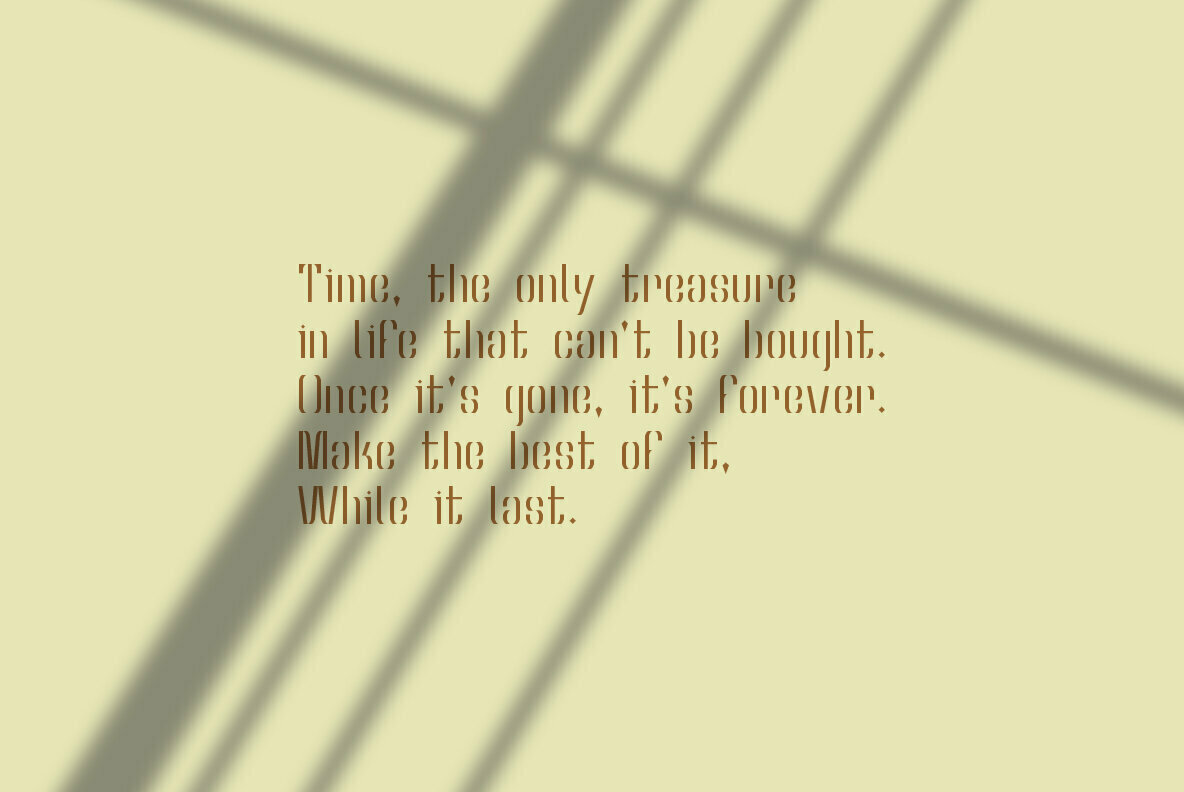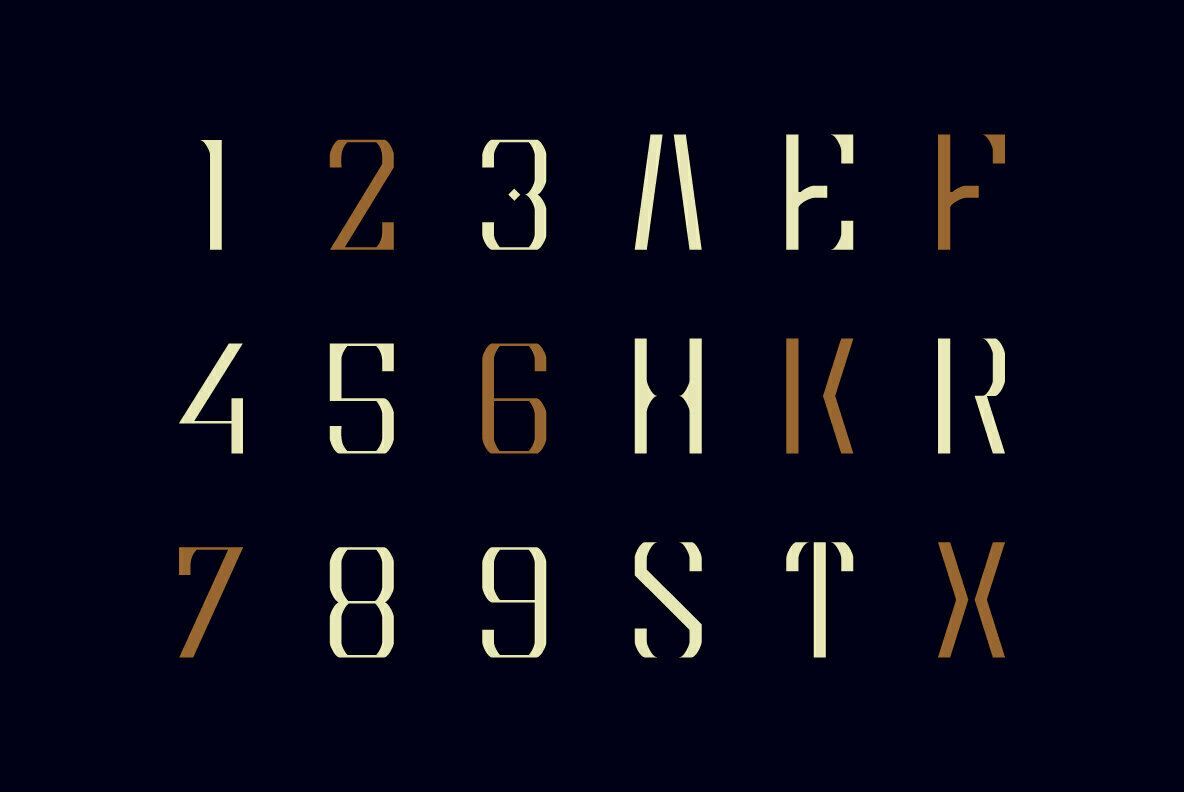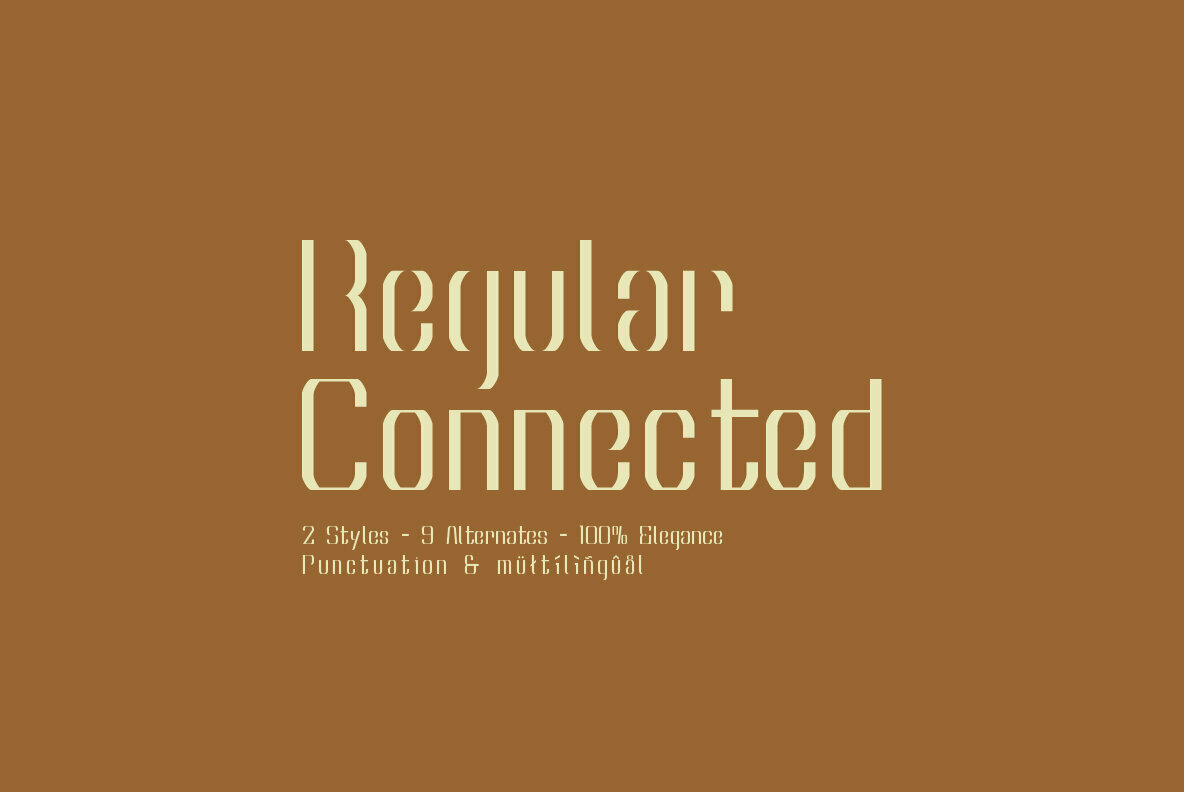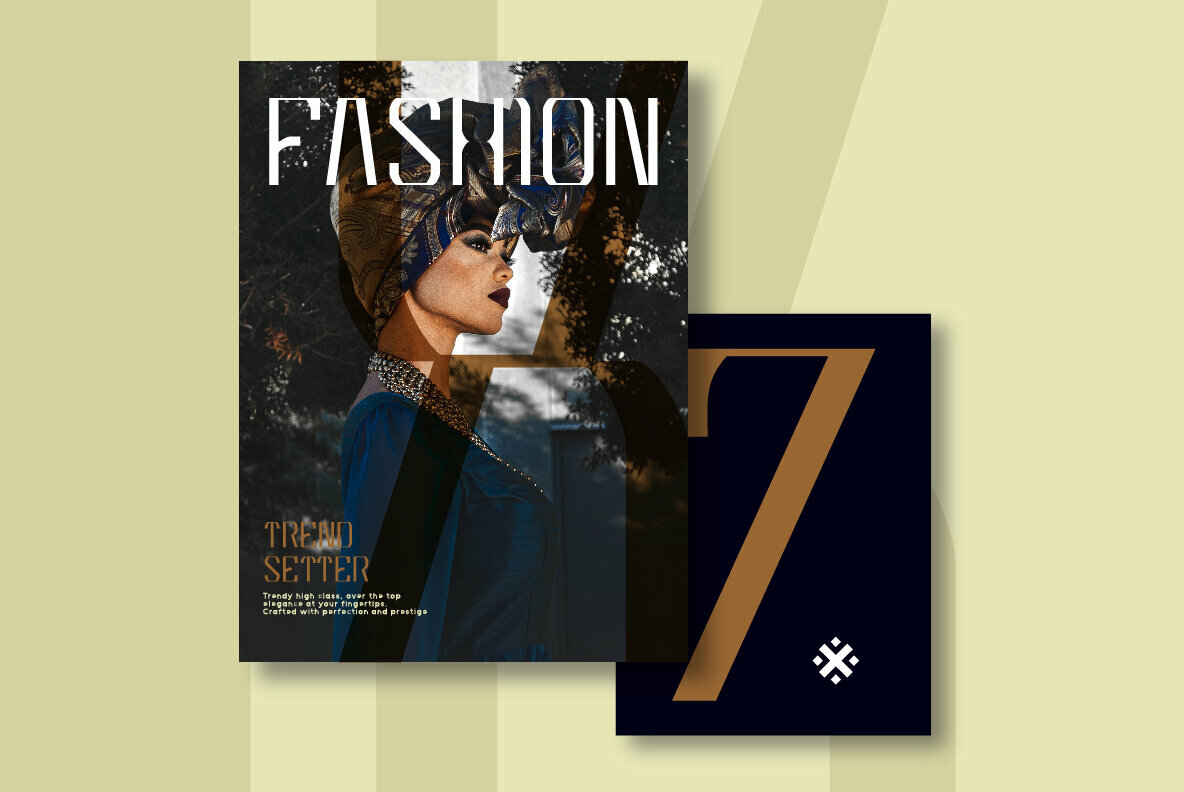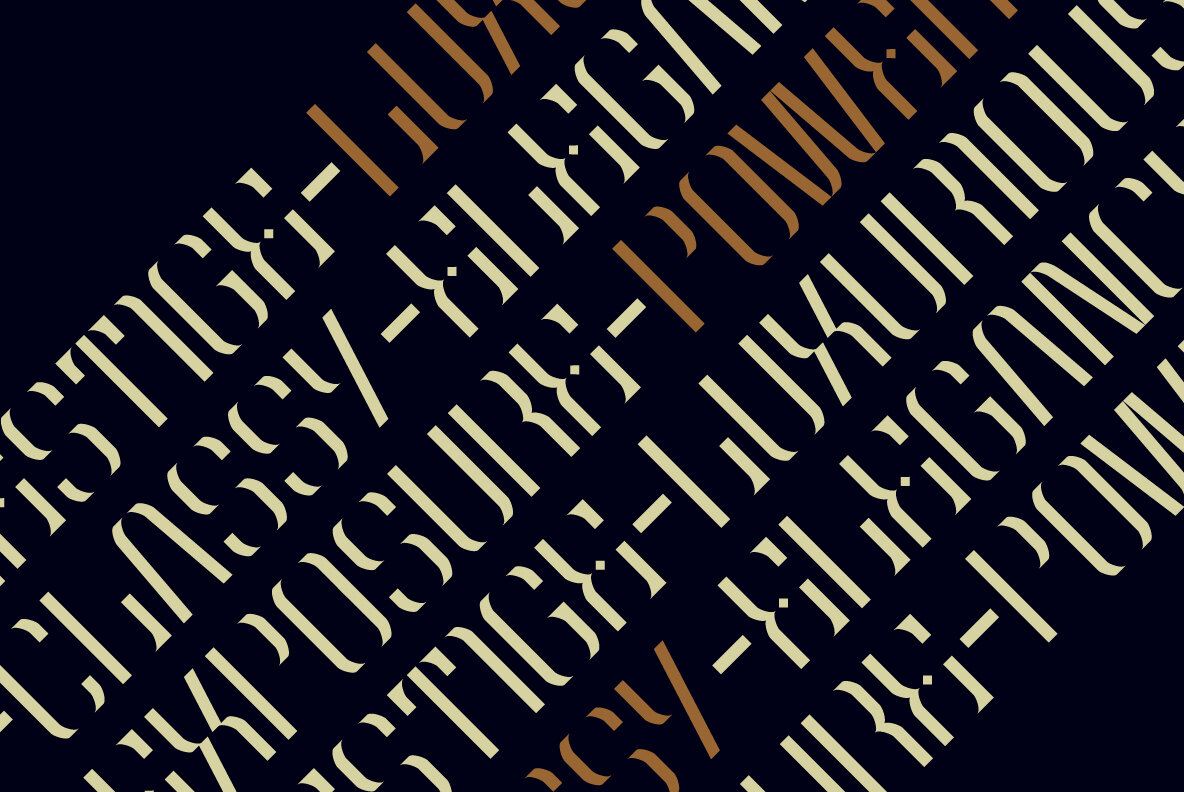
Hourglass Font
MBF Hourglass Regular
MBF Hourglass Connected
Hourglass by Moonbandit captures the allure and sophistication of its namesake shape. This elegant display typeface offers a rich, opulent feel that enhances designs with its distinctive style. Filled with uniquely shaped glyphs and several alternate letters, Hourglass provides a refreshing update to any project requiring a luxurious touch. The typeface is available in two styles: regular and connected, allowing seamless transitions depending on your design needs.Hourglass: Elegant and Exotic Display Typeface